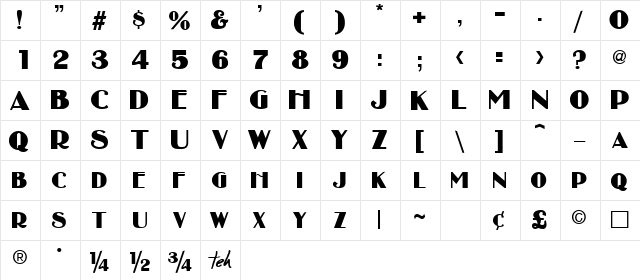
Broadbay Normal
Design Context for Broadbay Typeface
Broadbay is a composed and adaptable typeface that performs quietly and consistently across a wide range of design contexts.